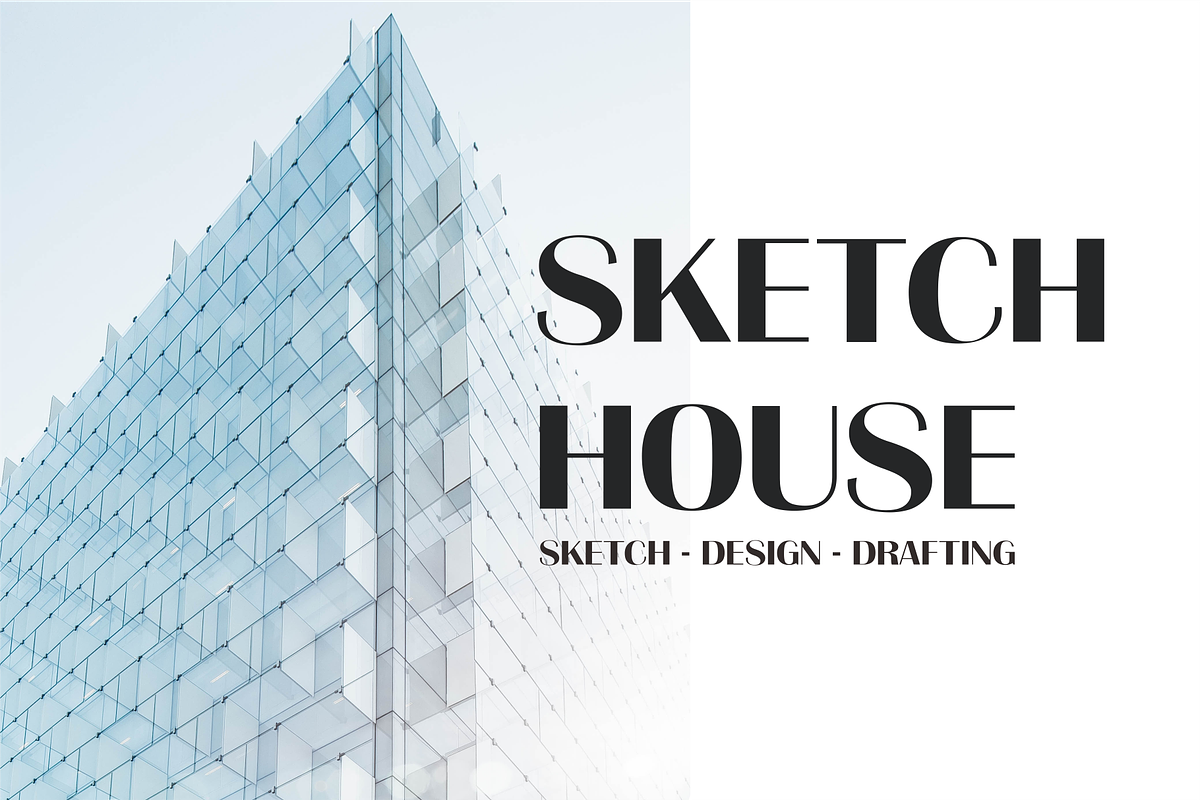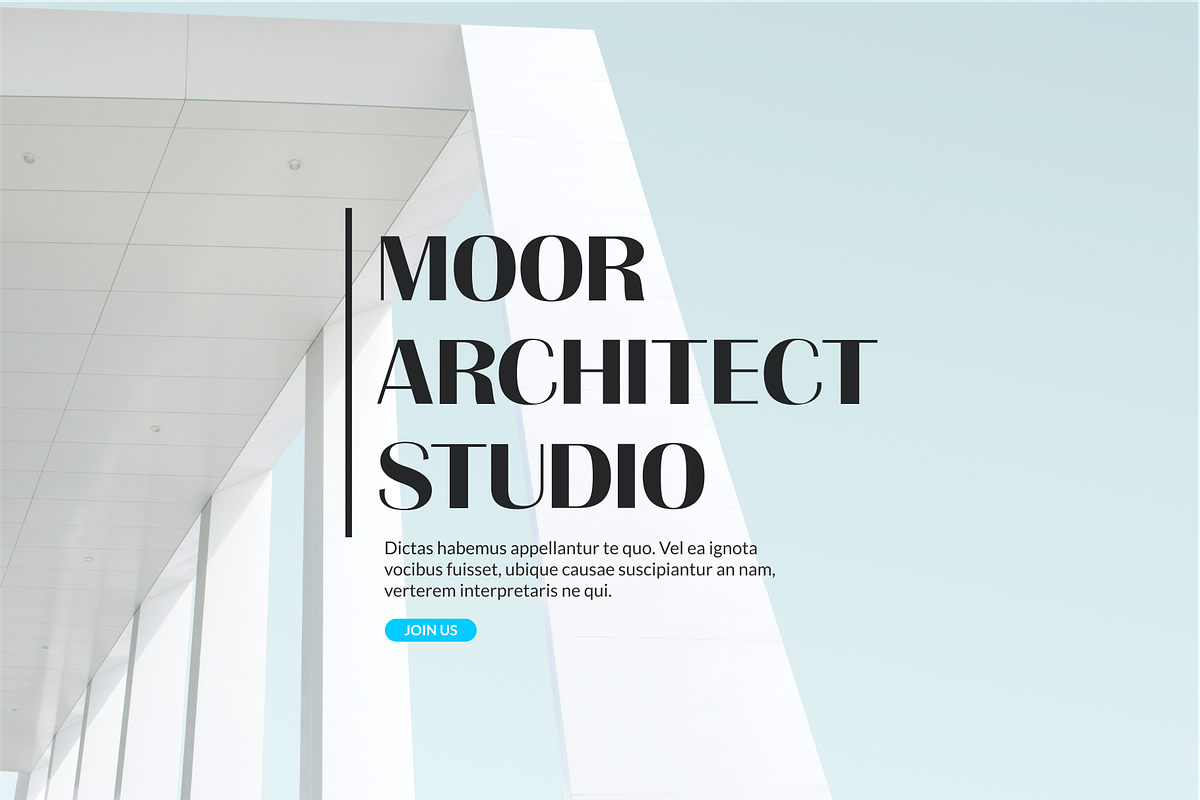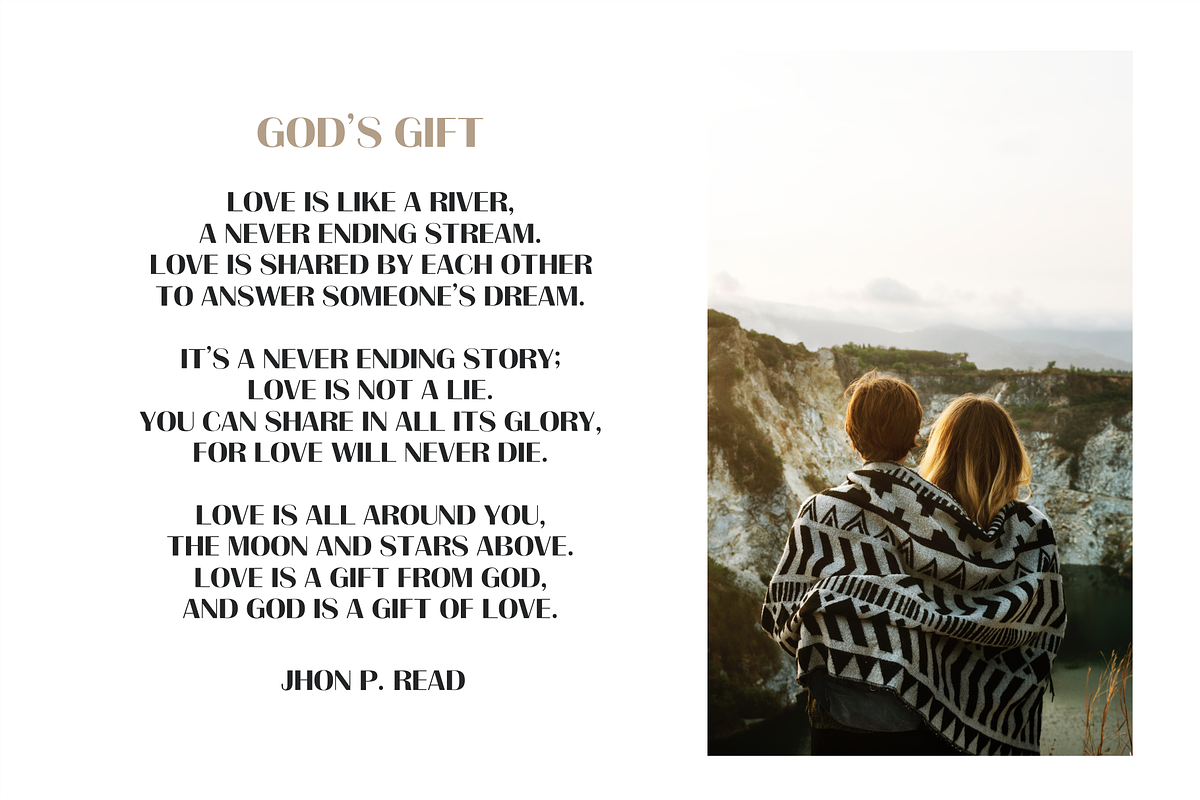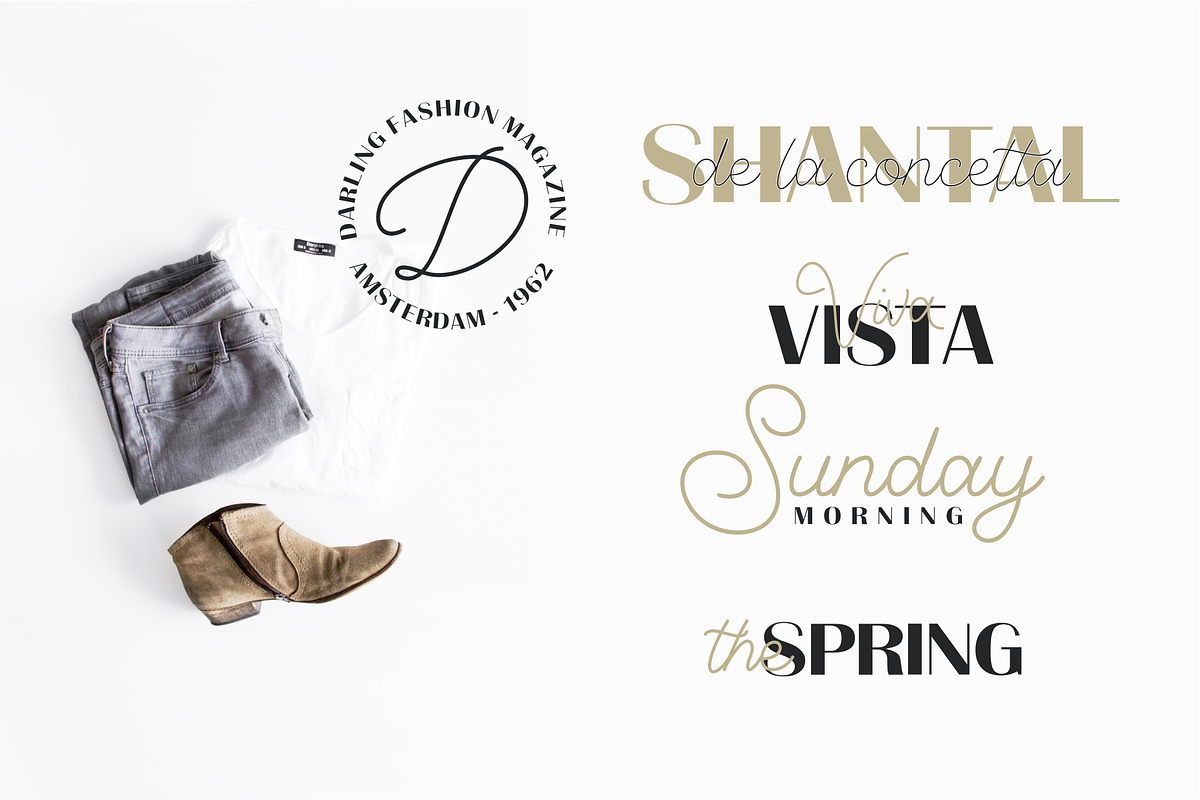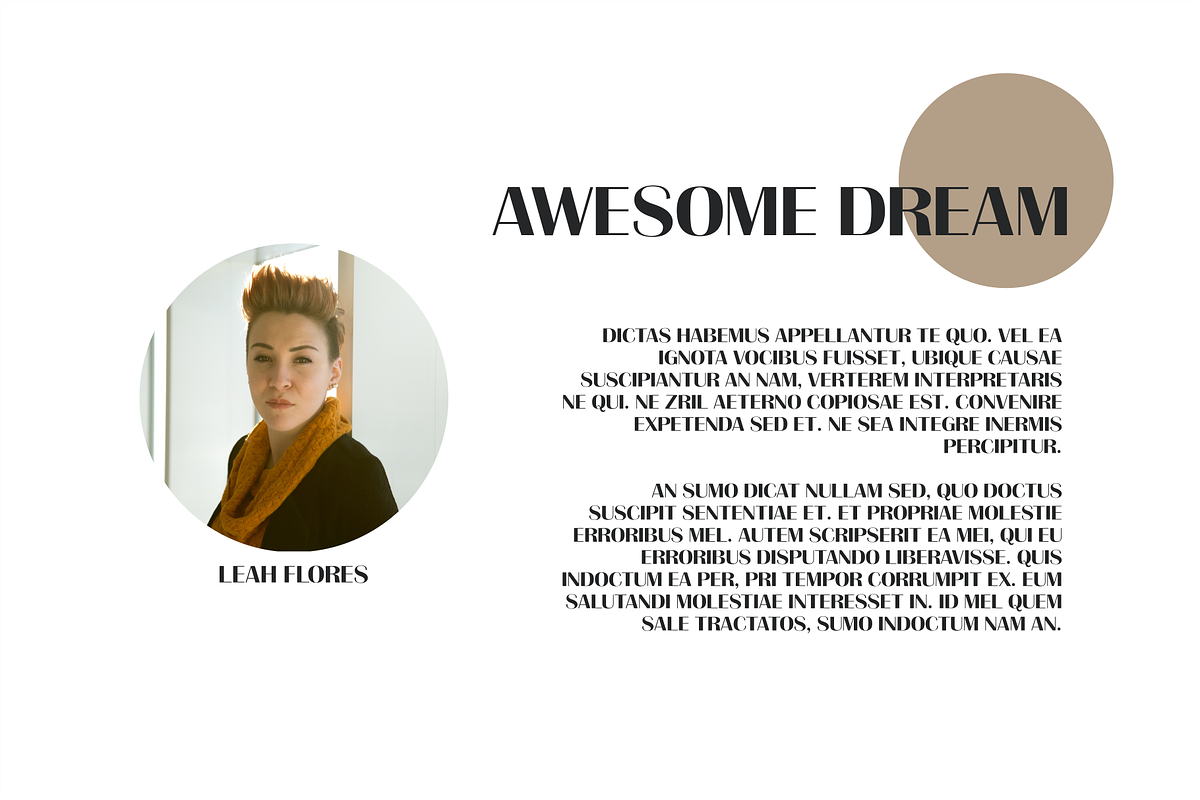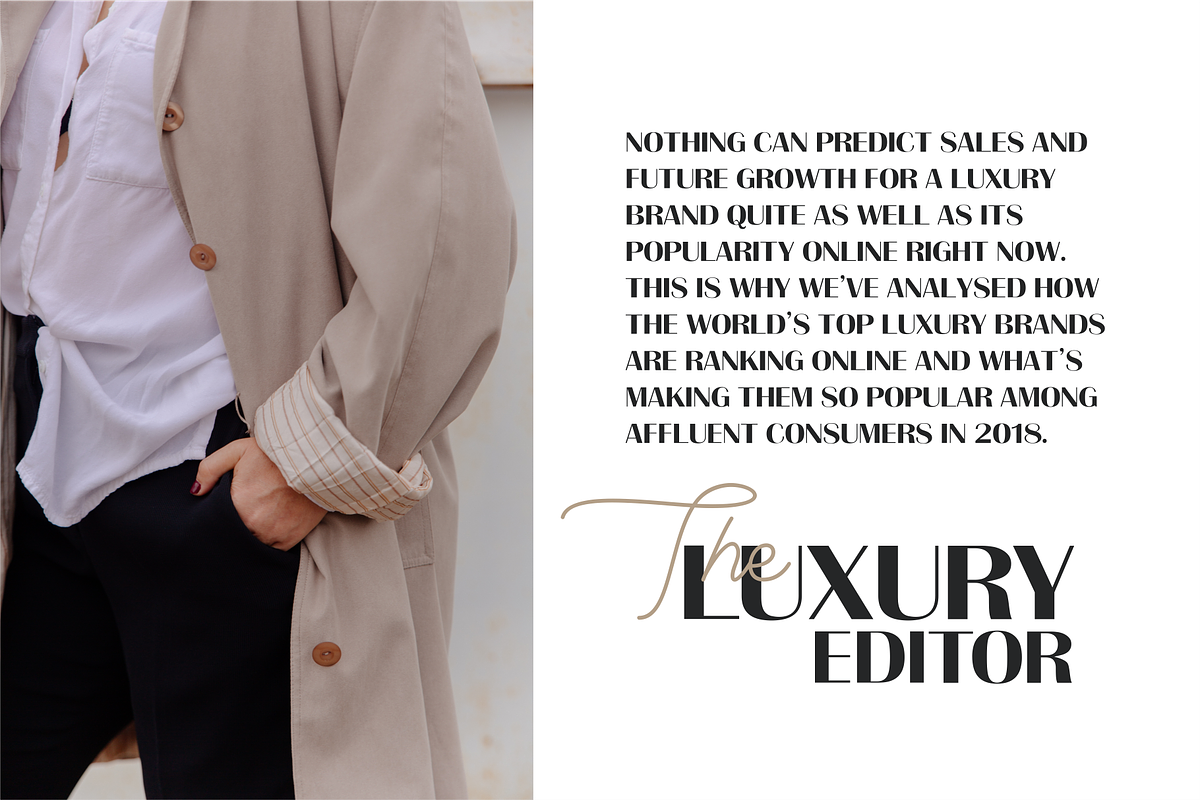
Denaro Font Duo
"Denaro Font Duo" is a luxury sans serif with monoline script. This font has a strong strokes, dynamic and perfect paired with monoline scripts.
Perfect for luxury logos, printed quotes, badges, insignia, packaging, headline, poster, t-shirt / apparel, greeting card, and wedding invitation, & etc
Why Denaro Font Duo is worth a look
Denaro Font Duo by 50Fox fits naturally into Branding, posters, packaging, typography.